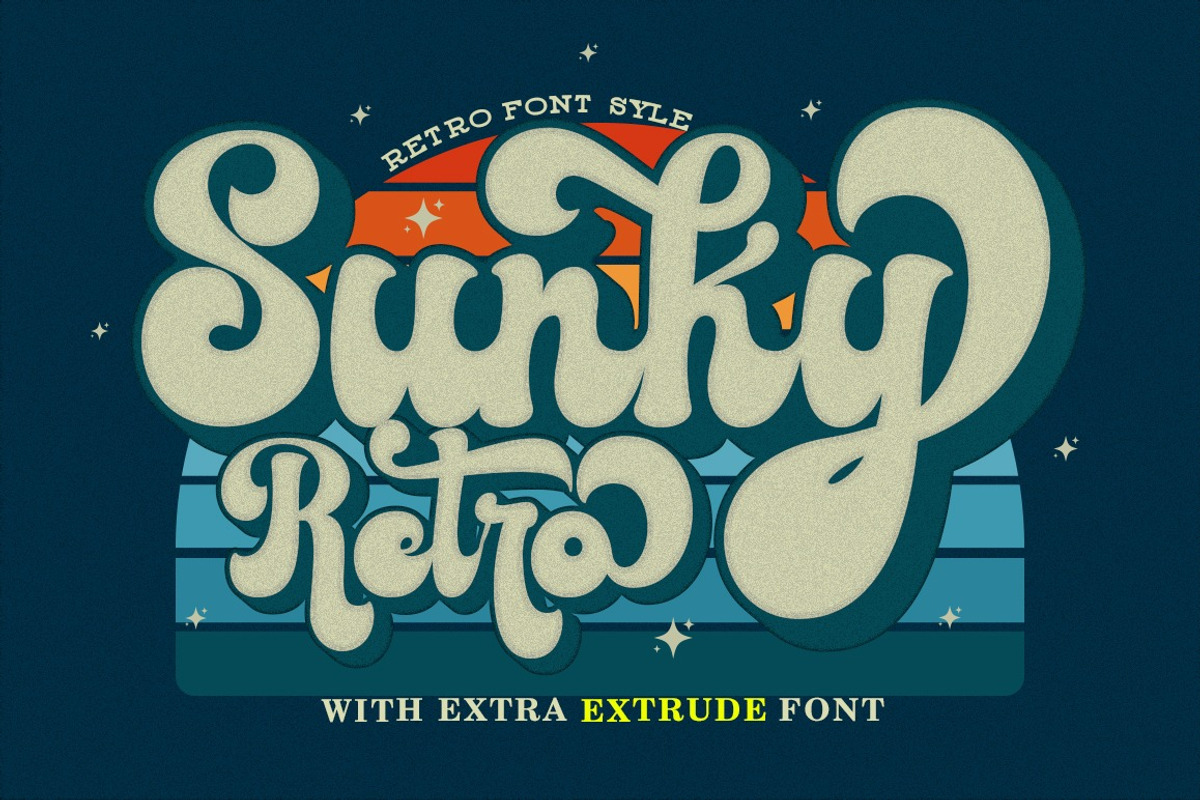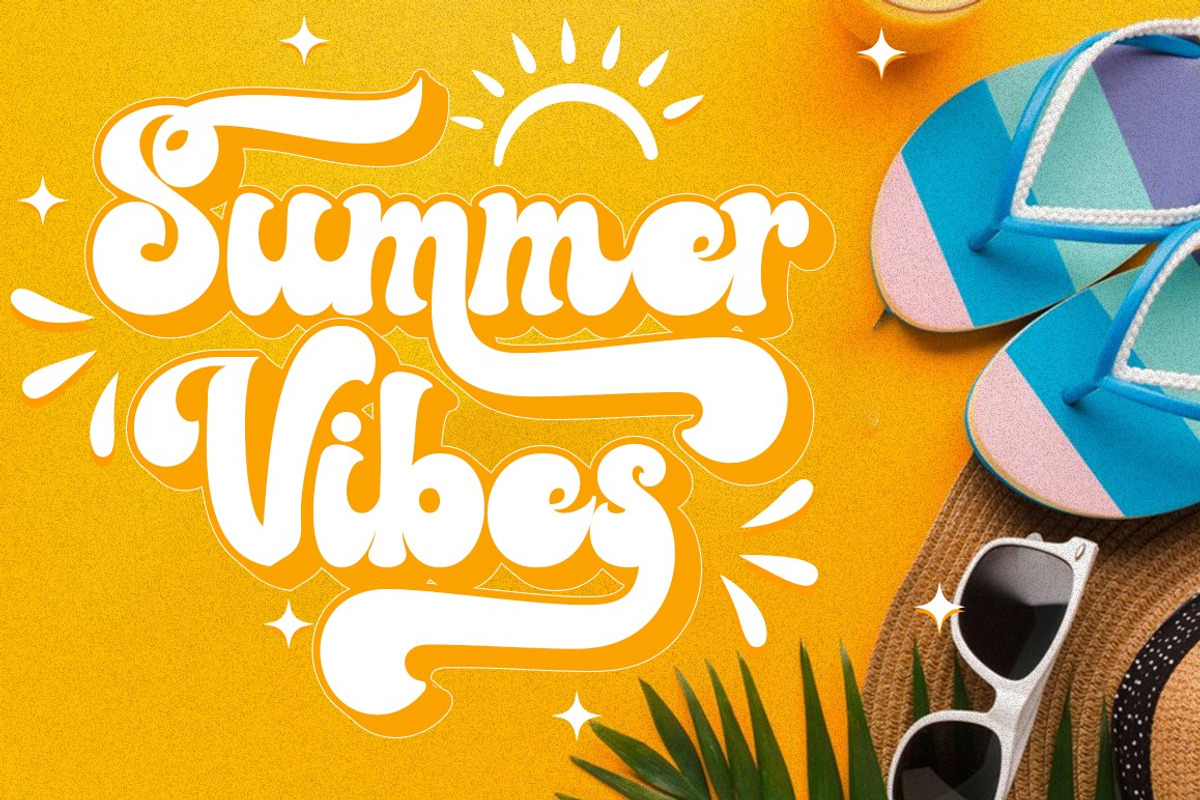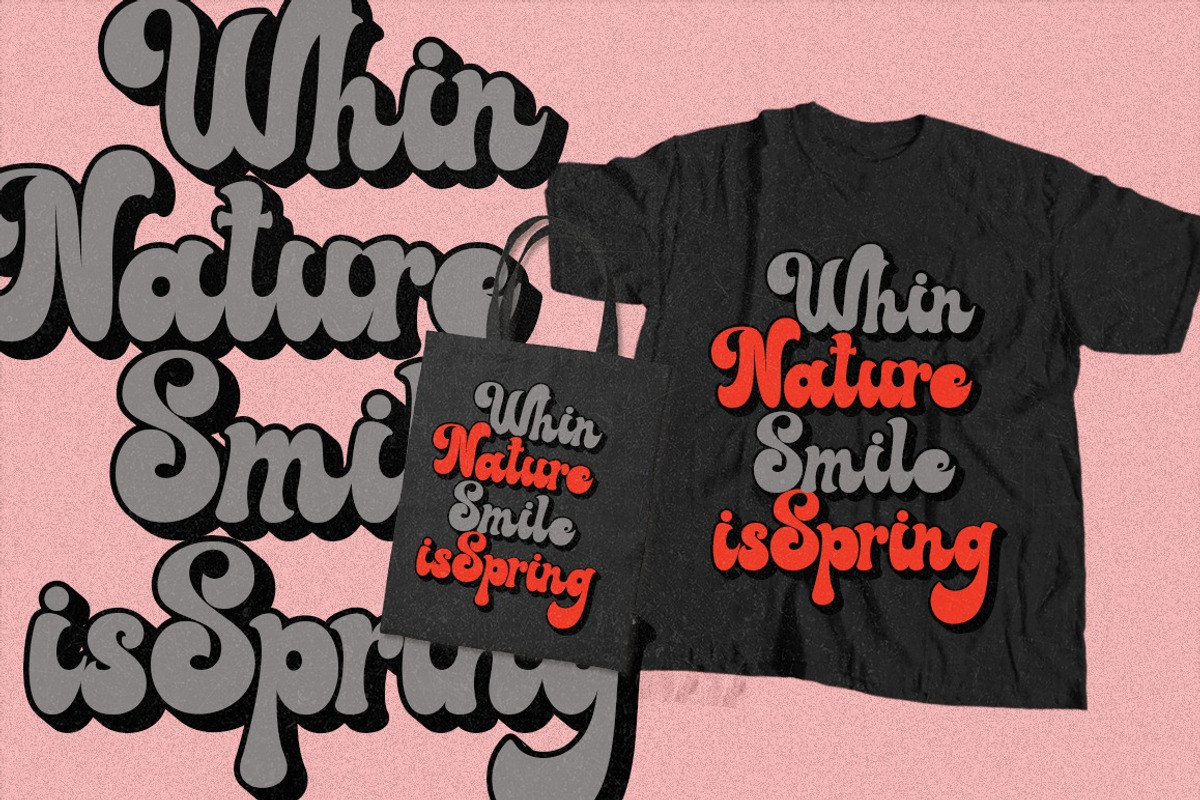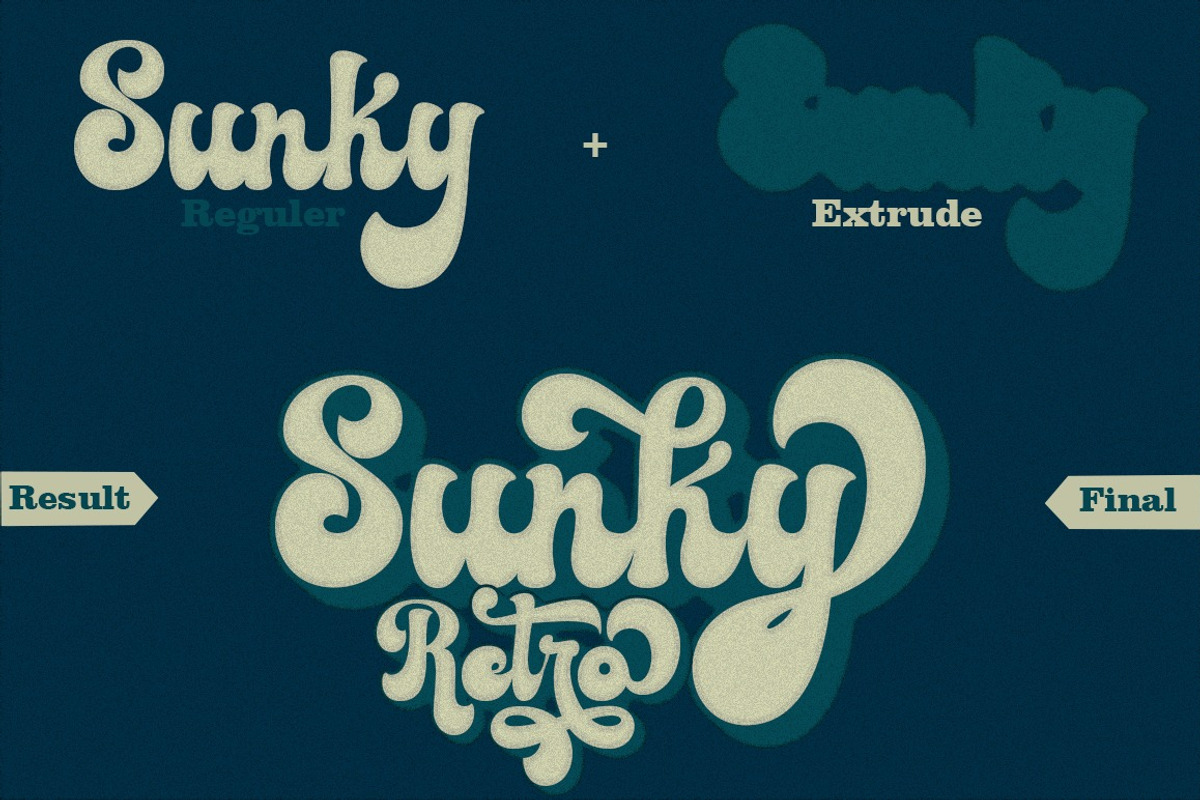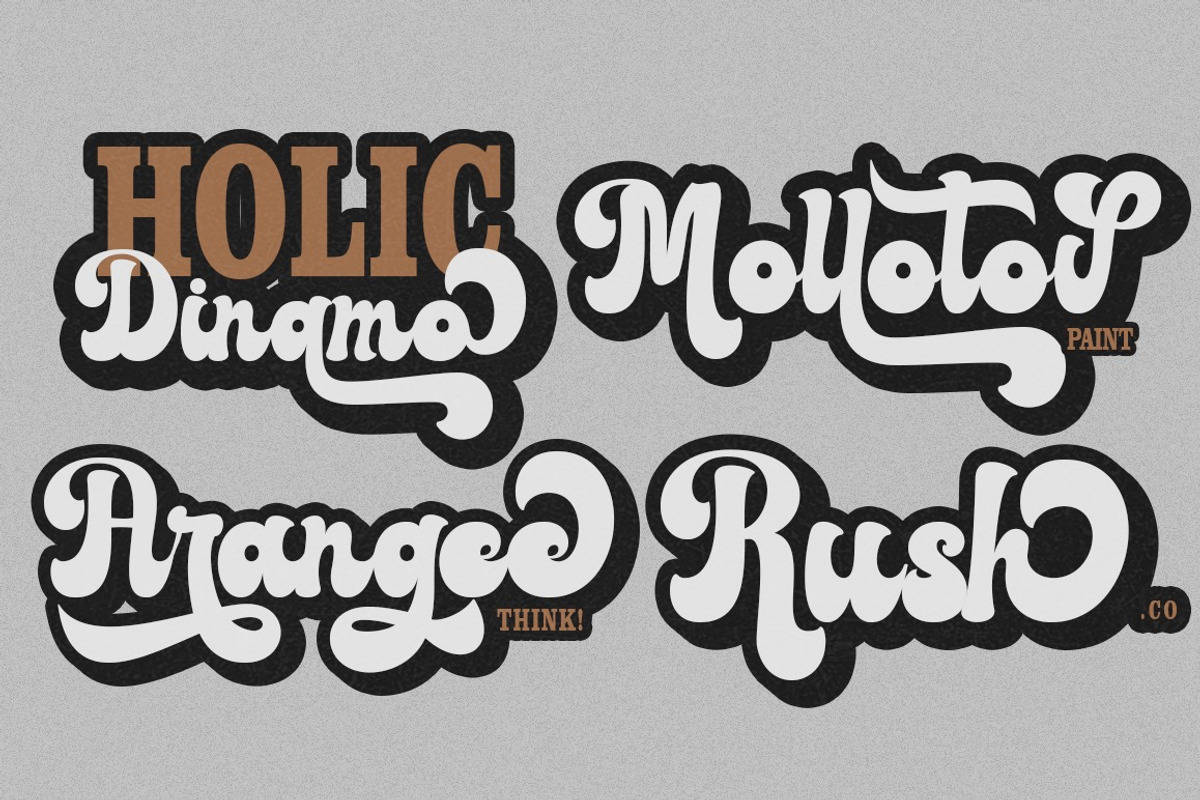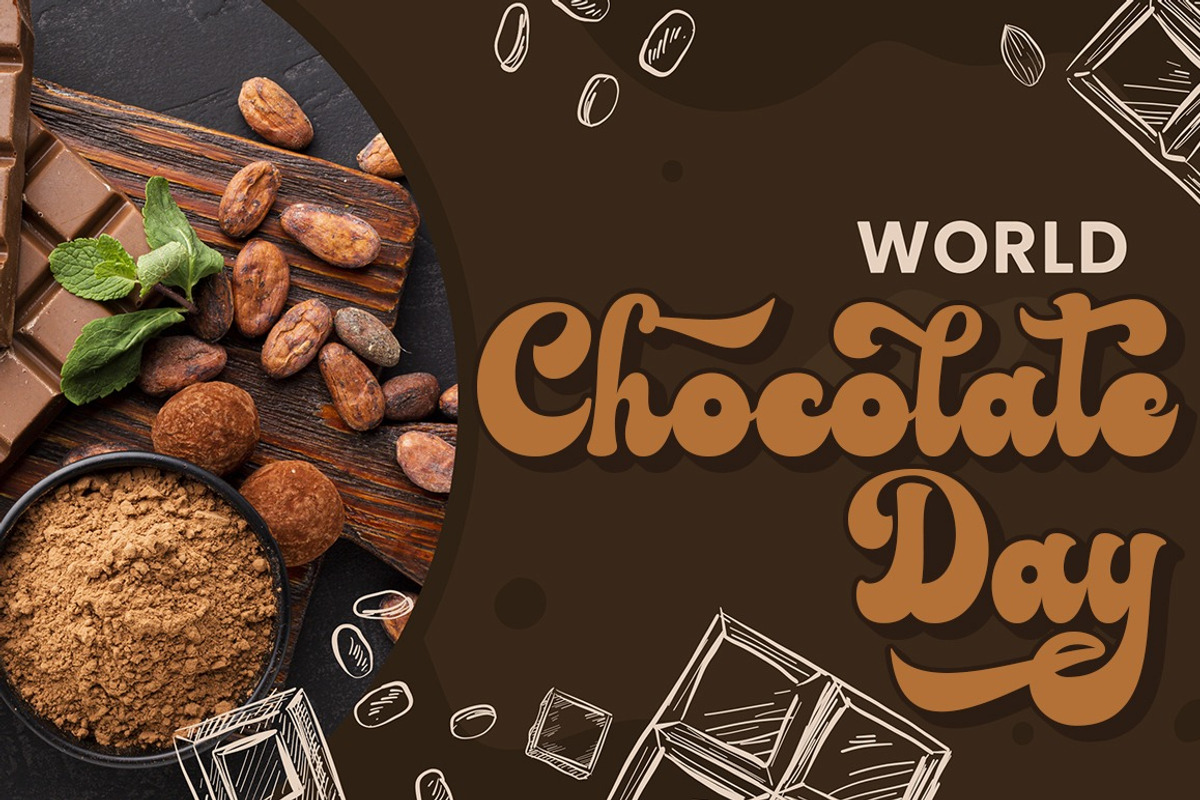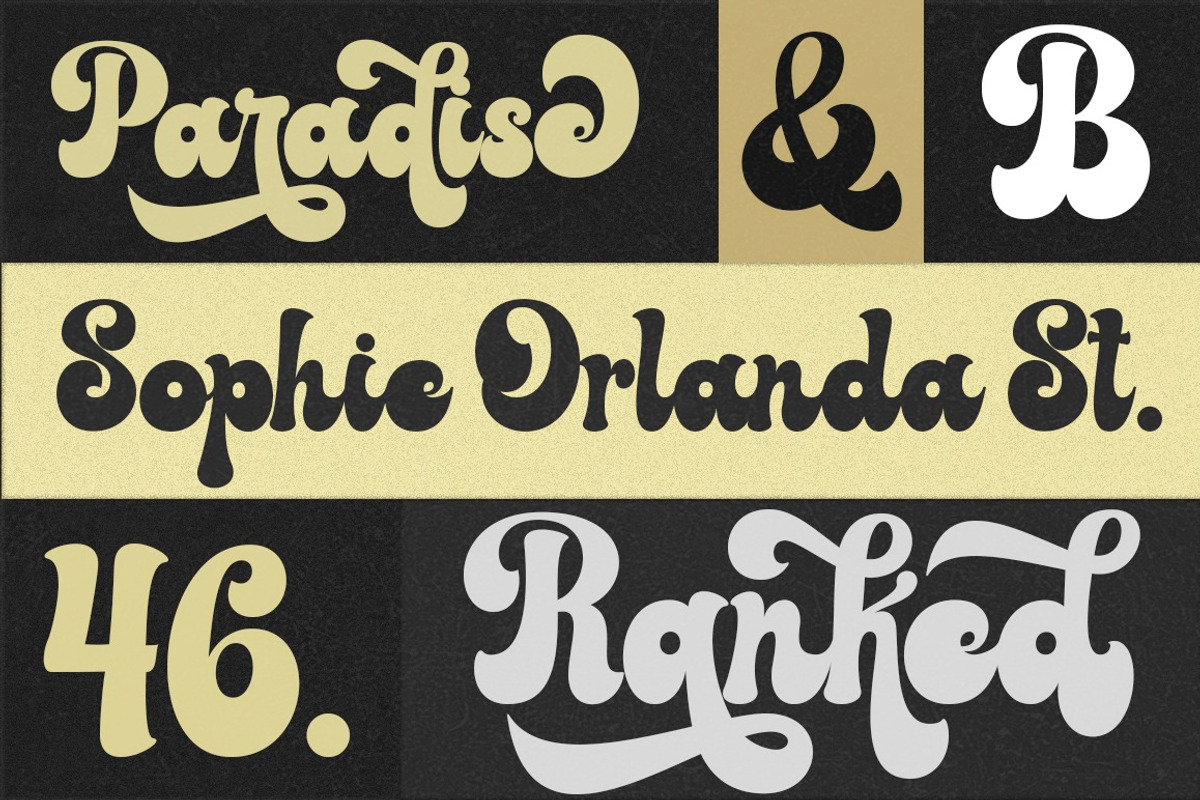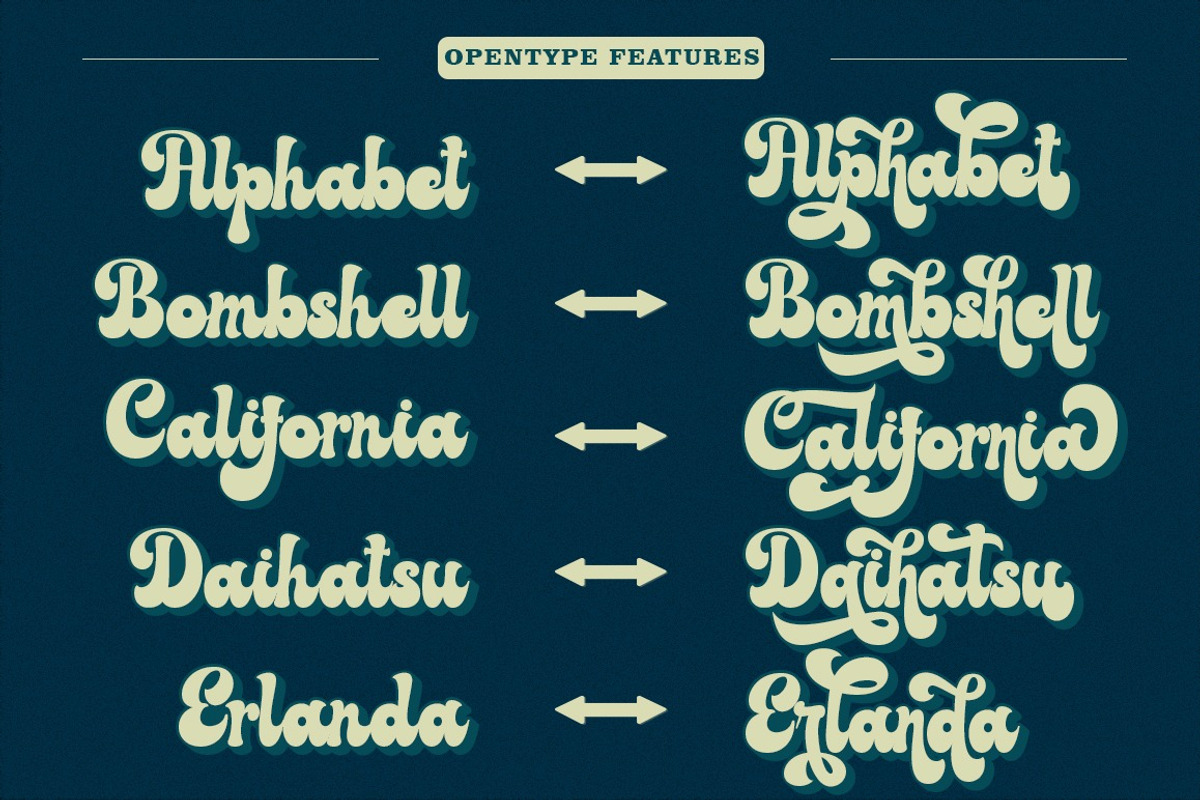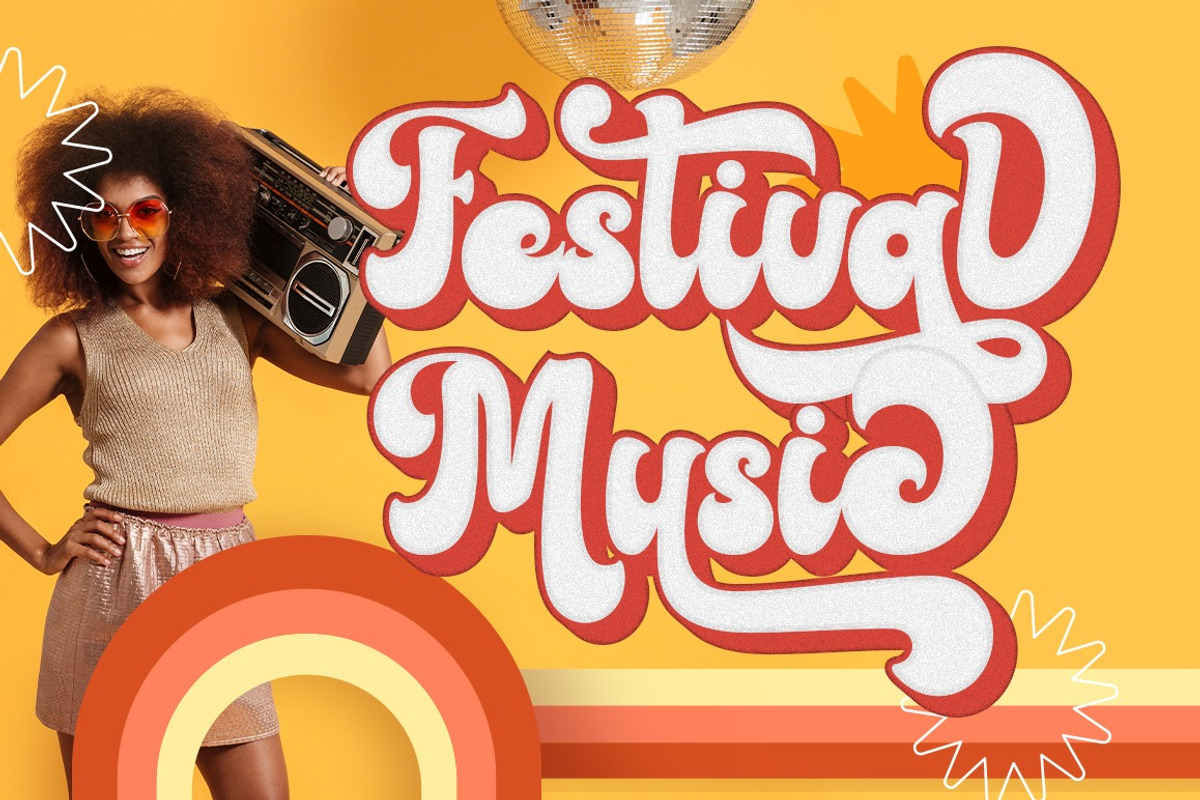
Sunky Retro
Introducing Sunky Retro, A Retro Bold Script font. It was inspired by retro typography designs in 70’s. There are more than 545 glyphs in this font including Multilanguage Support. OpenType features with Stylistic Alternates, Contextual Alternate and ligatures in some characters that allows you to mix and match pairs of letters to fit your design. Sunky Retro also comes with Extrude Font version, so you can create your retro effect font in ease.
Sunky Retro is perfectly suitable for made to be applied especially in logo, and the other various formal forms such as invitations, labels, logos, magazines, books, greeting / wedding cards, packaging, fashion, make up, stationery, novels, labels or any type of advertising purpose.